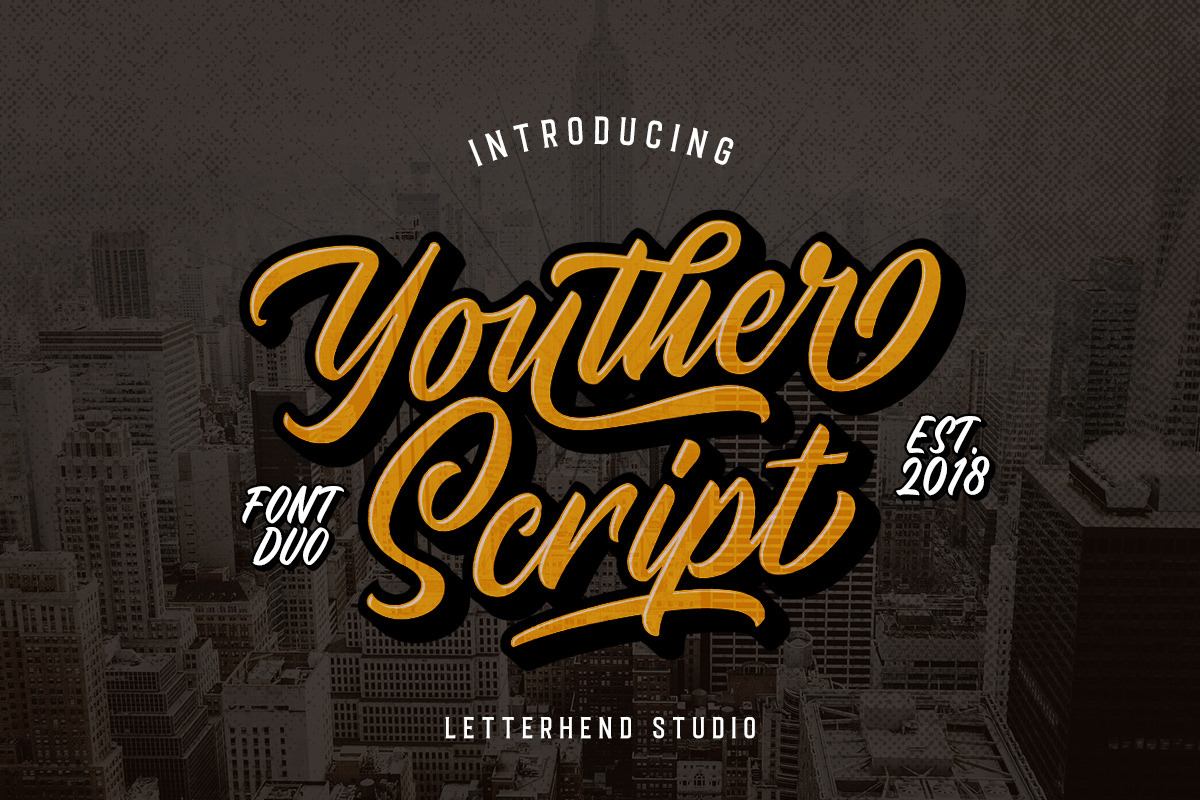
Youther Brush Layered Font Duo Free Download is a dynamic and edgy typeface pair that blends hand-painted strokes with bold display style. This layered font duo allows you to create depth and texture with ease, making it perfect for posters, logos, t-shirt designs, product packaging, and branding that needs a vibrant, handcrafted look.
Whether you’re building an expressive brand identity, crafting eye-catching event graphics, or designing artistic apparel, Youther Brush delivers boldness, texture, and impact to your typography. It’s the ideal choice for designers looking to add a layer of creativity and energy to their work.